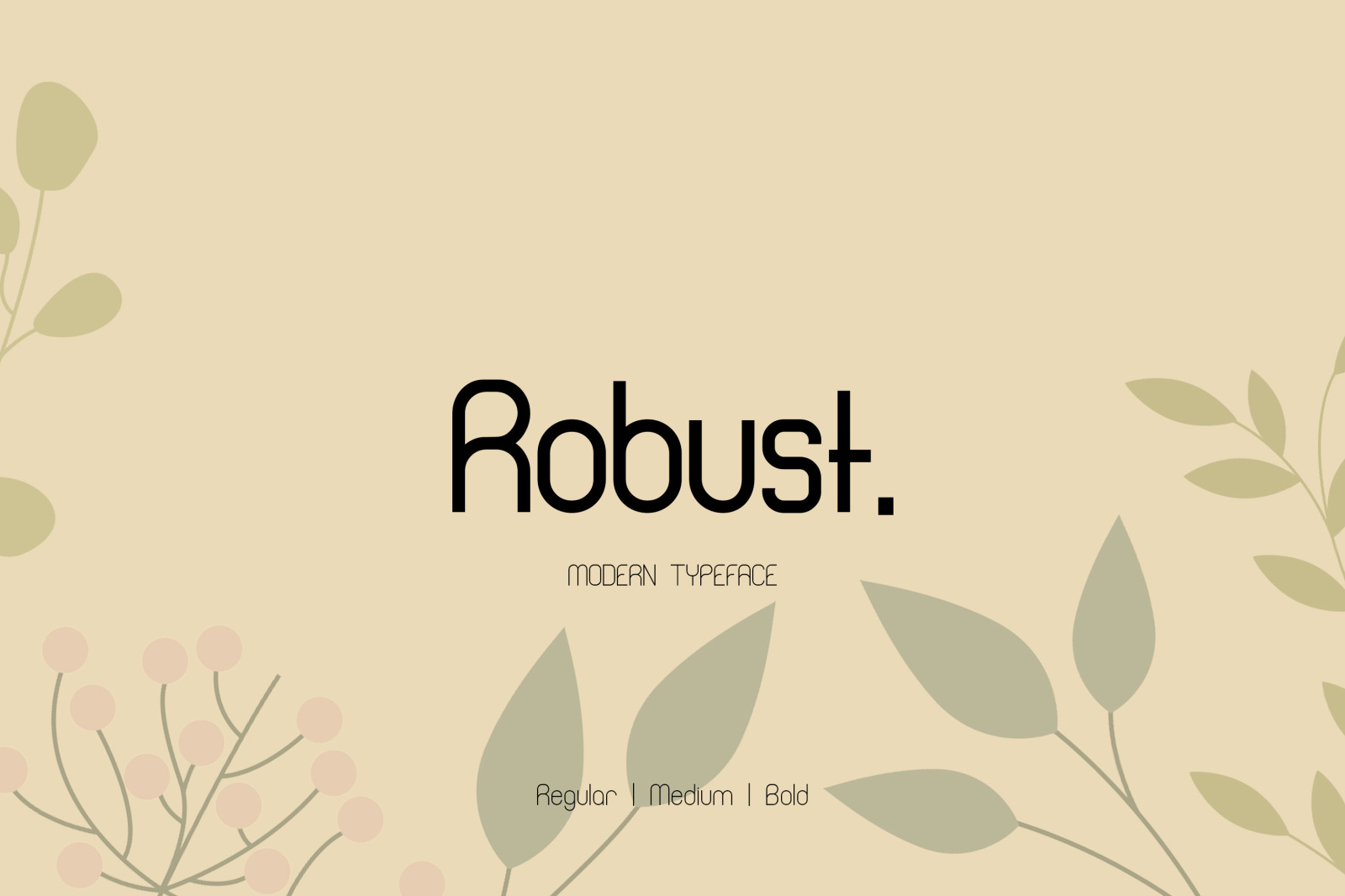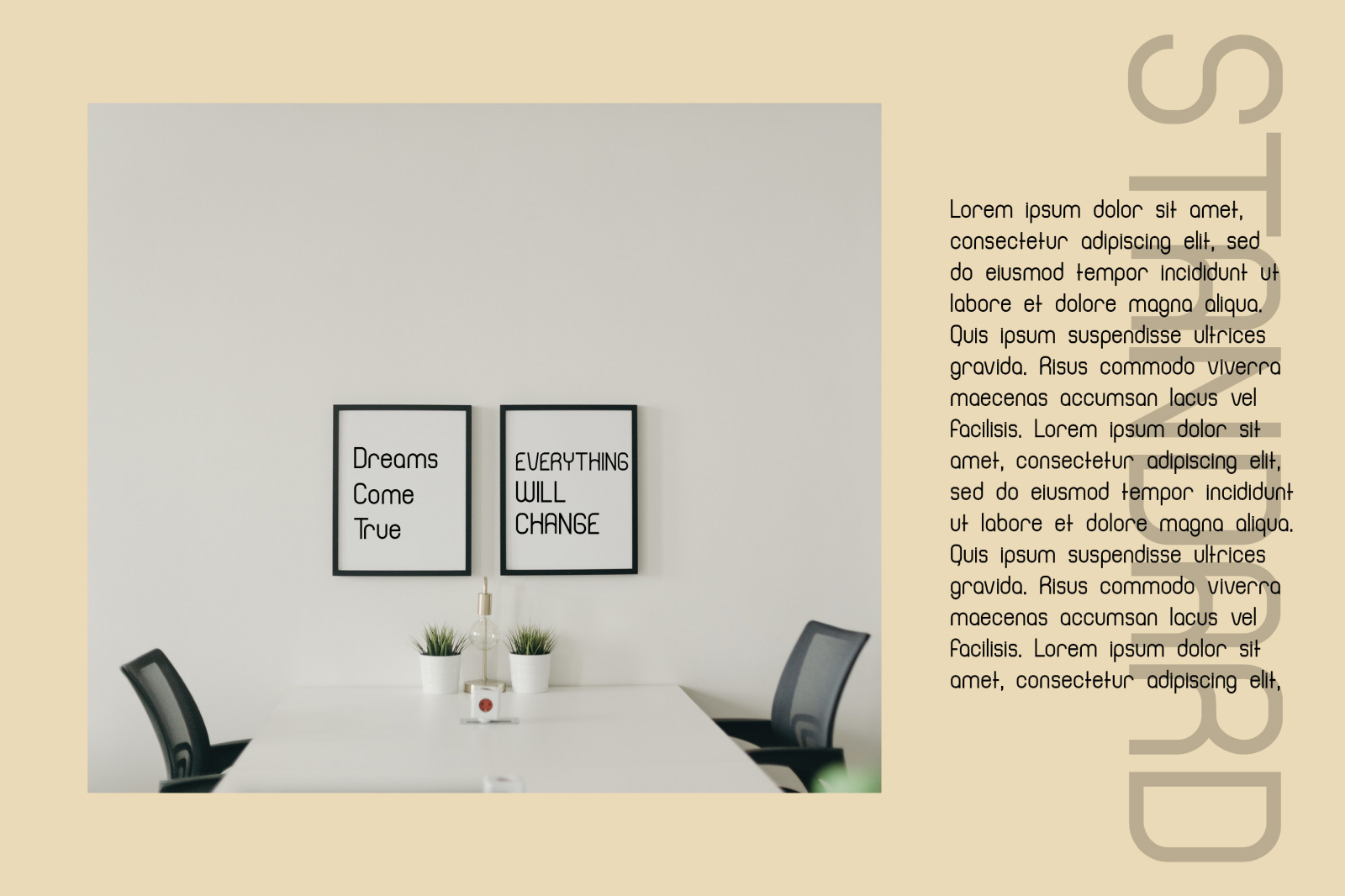
Robust Font
Robust is a unique and modern sans serif font. It has superbly neat and minimalistic letters that can take each of your creative projects to the highest levels!
This font is intended for use as a display font. Robust has a versatile, thin yet playful design, allowing you to be creative with your projects.
This font has 200 above glyphs and extensive Latin script support and upper and lowercase sans serif characters. robust carries a powerful, unique, and social character line with a premium finish, giving a new impression to keep the modernity and minimal touch for your presentations.